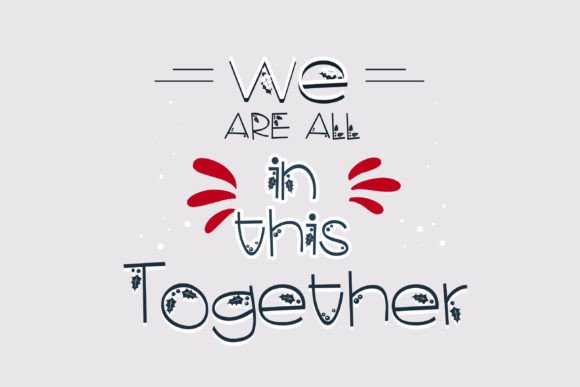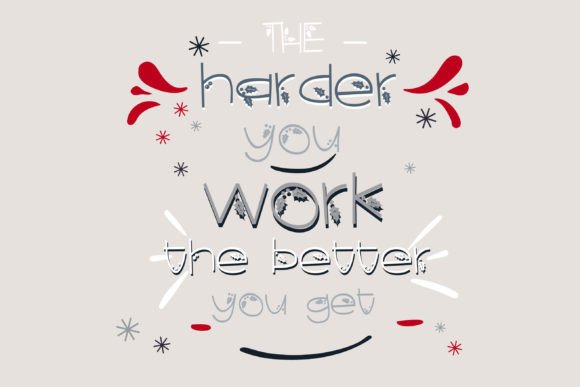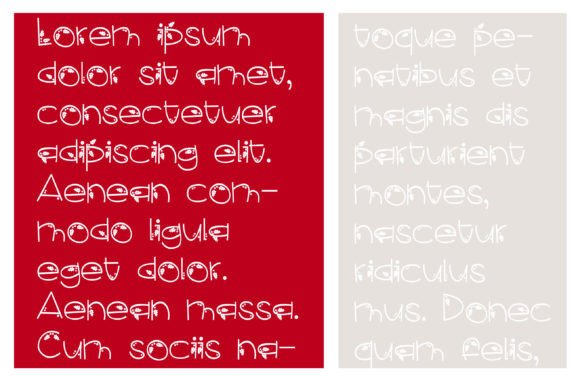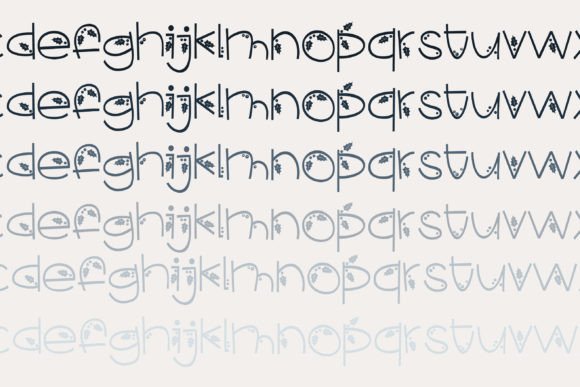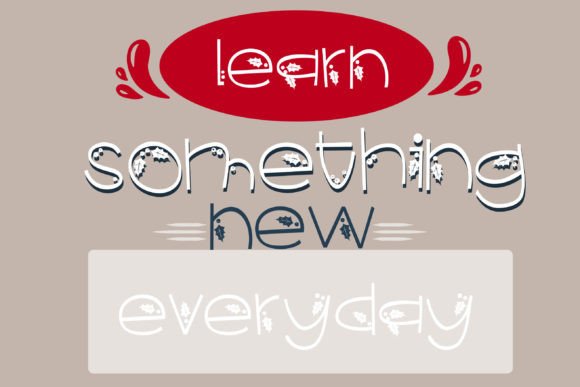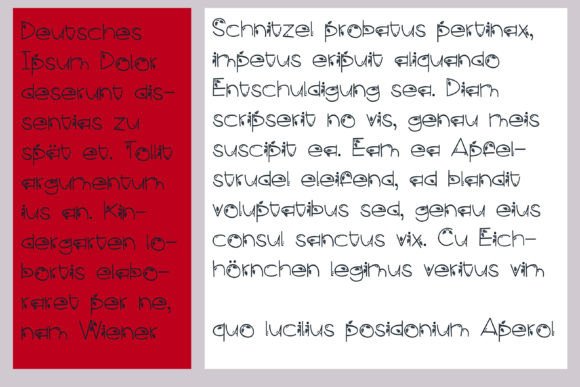
Introduction to Christmas Catch Font
As a designer, you’ve likely had those moments when a project’s success hinges on the perfect font. You’re in the middle of a creative session, and suddenly, the right typography can make all the difference. That’s where the Christmas Catch Font comes in – a delightful, modern, and whimsical handwritten decorative font that will transport your designs to a magical world.
Key Features of Christmas Catch Font
- High-quality, intricate design perfect for creative projects, especially those related to the holiday season.
- Designed with a unique, festive feel, ideal for Christmas-themed projects, cards, and invitations.
- Includes a range of characters, including uppercase and lowercase letters, numbers, and special characters.
Honest Review: Christmas Catch Font
I recently had the chance to work with the Christmas Catch Font, and I must say it’s a delightful addition to any creative project. The high quality of this font is evident from the first glance, and I found it to be perfect for designing festive content.
- ✨ What works well: The font is highly customizable, and its transparent background makes it easy to overlay on different images and designs.
- ✨ What works well: The font has a wide range of styles and sizes, making it perfect for various design projects, from social media graphics to print materials.
However, I did encounter a few limitations while working with the Christmas Catch Font.
- ⚠️ Limitations: The font may not be suitable for all types of designs, especially those that require a more modern or minimalist look.
- ⚠️ Limitations: The font’s transparency feature can sometimes make it difficult to read, especially when overlaid on busy backgrounds.
Overall, I’m impressed with the Christmas Catch Font, and I would definitely recommend it as a design resource for any creative project, especially those that require a festive touch.
The Christmas Catch Font is ideal for holiday-themed designs, such as Christmas cards, gift tags, and social media posts. It’s also a great choice for any creative project that requires a festive and fun font.